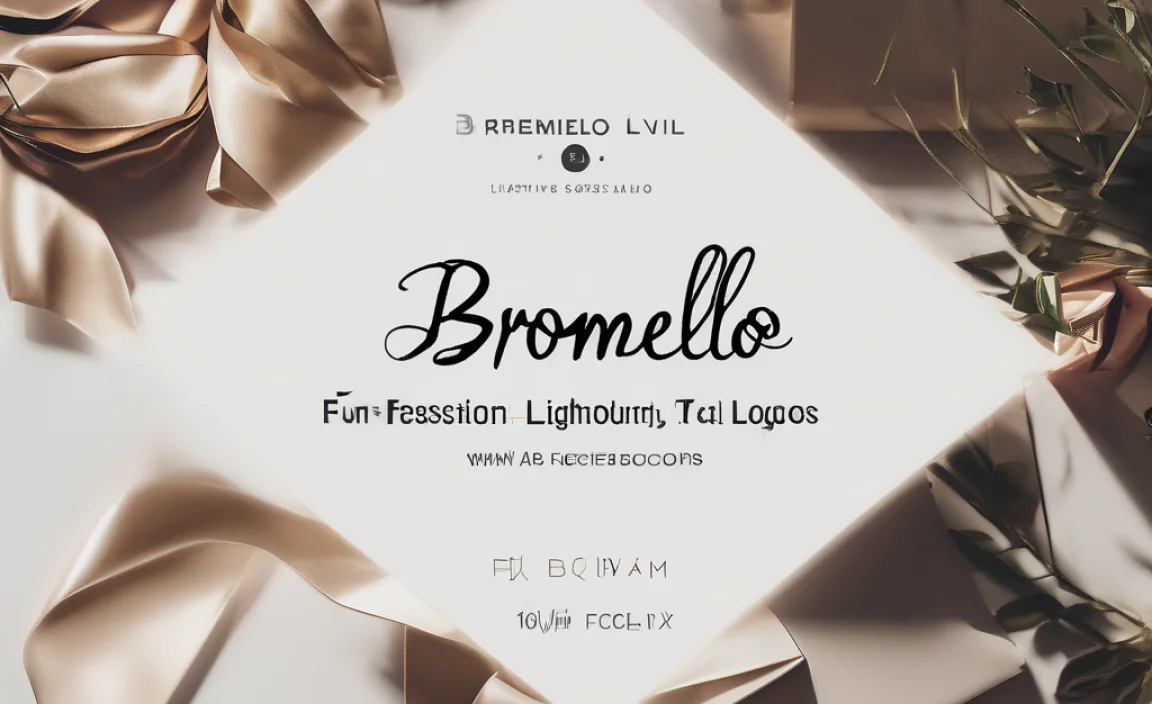
Bromello Font, designed by Alit Suarnegara of Alit Design, is a stylish modern script typeface with a handcrafted touch. Due to its elegant swashes and flourishes, this handwritten font is widely used for invitations, logos, and branding. Whether you’re designing a wedding invitation, a personal project, or a stylish logotype, Bromello brings a unique, sophisticated aesthetic to your designs.
Bromello Font Family & Styles
The Bromello font family consists of:
- Bromello Regular – A classic script with smooth, elegant strokes.
- Bromello Italic – A slanted version with a dynamic, flowing appearance.
Why Use Bromello For Invitations?
Bromello is a perfect choice for creating personalized and eye-catching invitations. Here’s why:
- Elegant Handwritten Style – Gives a custom, sophisticated look.
- Beautiful Swashes & Ligatures – Enhances decorative appeal.
- Multilingual Support – Suitable for global projects.
- Perfect for Special Events – Ideal for weddings, birthdays, and festive cards.
Why Use Bromello For Logos?
This script font is widely used in branding because:
- Stylish & Professional – Suitable for luxury brands and boutiques.
- Versatile & Readable – Works well in logos, business cards, and signage.
- Pairs Well with Other Fonts – Complements serif, sans-serif, and condensed fonts.
- Great for Retro & Modern Looks – Can be combined with vintage or futuristic fonts.
Font Comparison Chart
| Feature | Bromello Regular | Bromello Italic |
| Style | Handwritten | Slanted Script |
| Swashes | Yes | Yes |
| Ligatures | Yes | Yes |
| Readability | High | Medium |
| Best Use | Invitations, Logos | Branding, Headers |
What Are The Best Font Pairings For Bromello?
Bromello pairs well with Playfair Display (serif fonts) and Lato (condensed fonts).